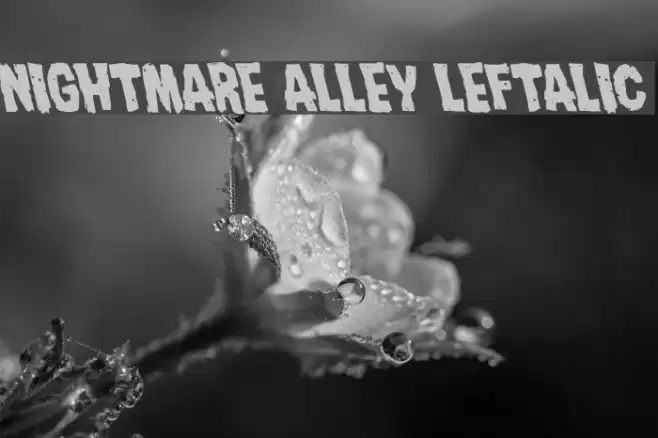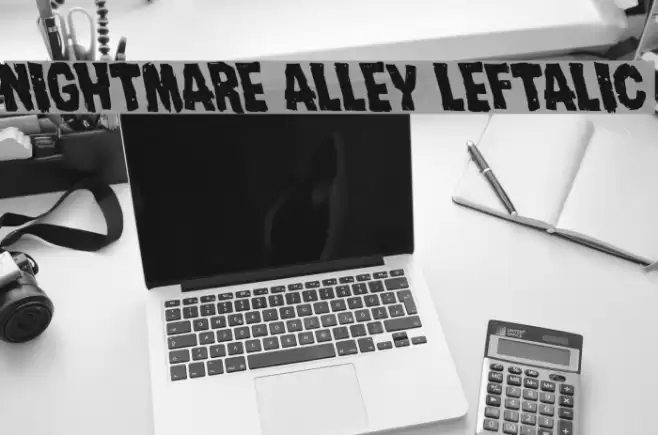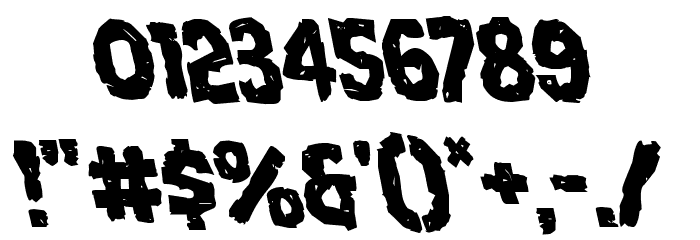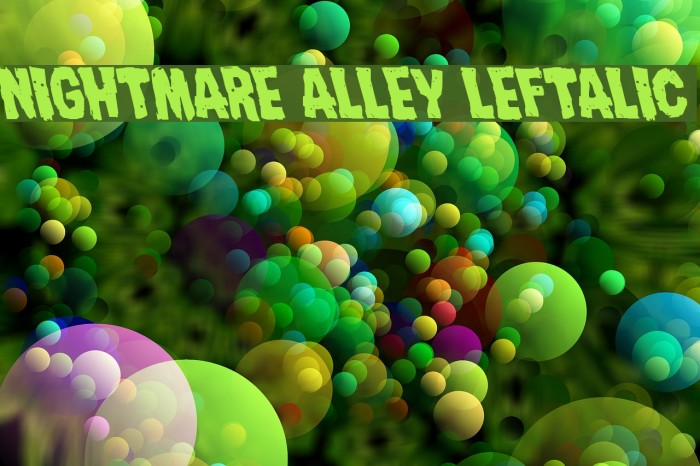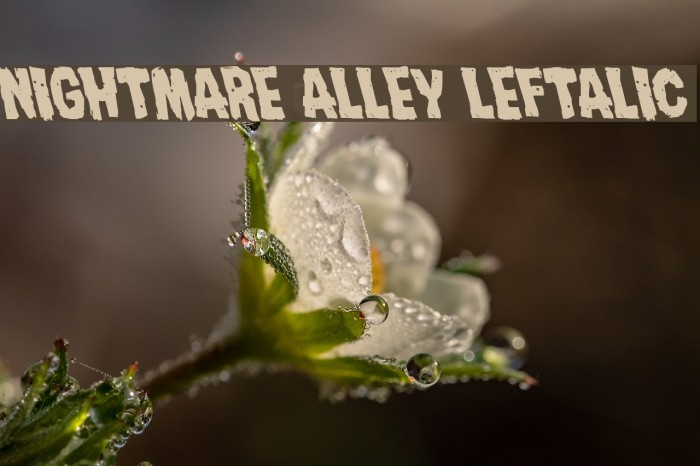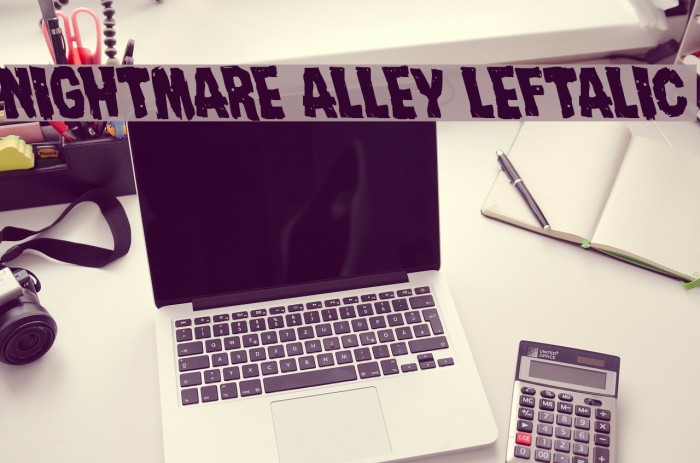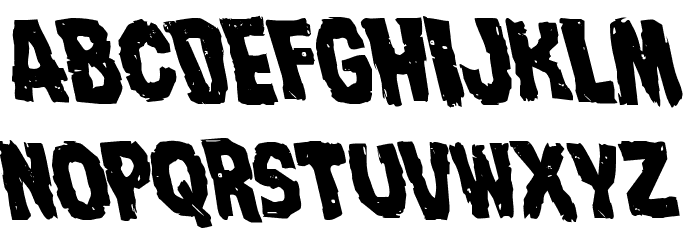
Nightmare Alley Leftalic Font
Nightmare Alley Leftalic Description
This font exhibits a rugged, distressed style with a bold and impactful appearance. The characters are unevenly shaped, giving a hand-drawn, grunge aesthetic that suggests a sense of chaos or edginess. The uppercase and lowercase letters maintain a consistent height, contributing to a cohesive look despite their irregular outlines. The numbers and special characters follow the same distressed theme, adding to the overall raw and unrefined feel. This font is designed to stand out and make a statement, ideal for projects that require a bold and unconventional look.
A bold, distressed font with a rugged, hand-drawn style from Horror fonts.
- Proposed Projects: Perfect for album covers, movie posters, horror-themed designs, and edgy branding projects.
- Overall Style: Grunge, Edgy, Distressed